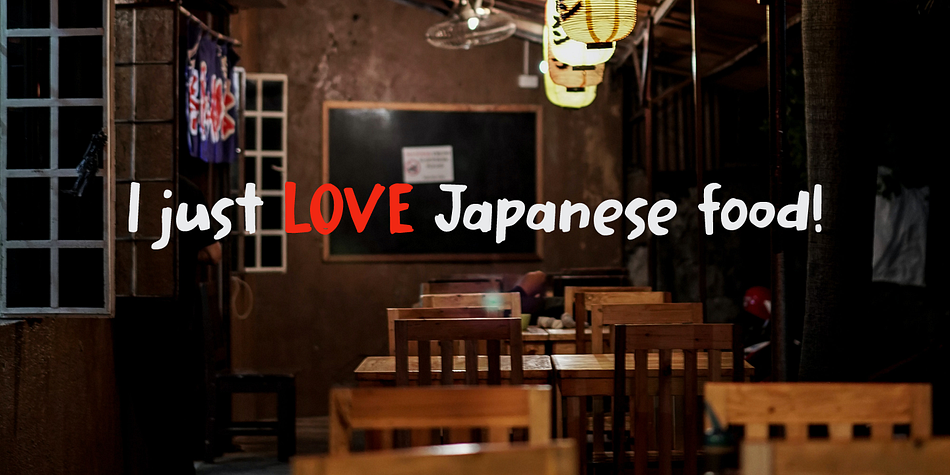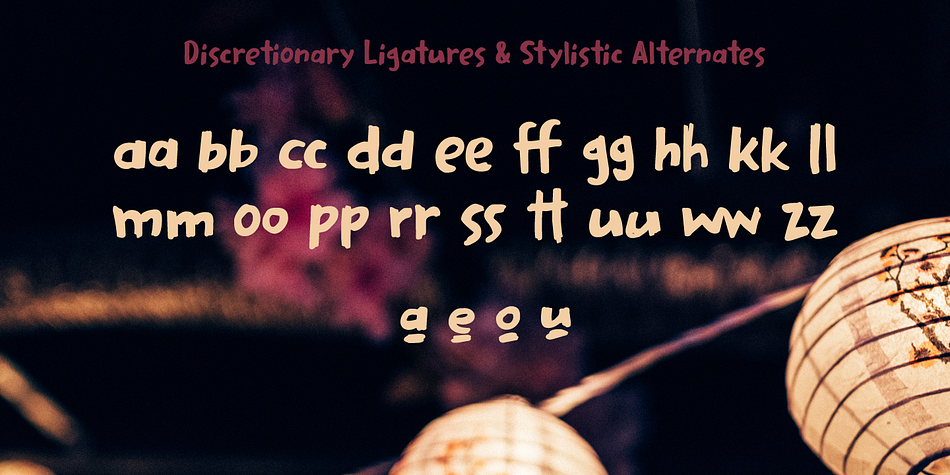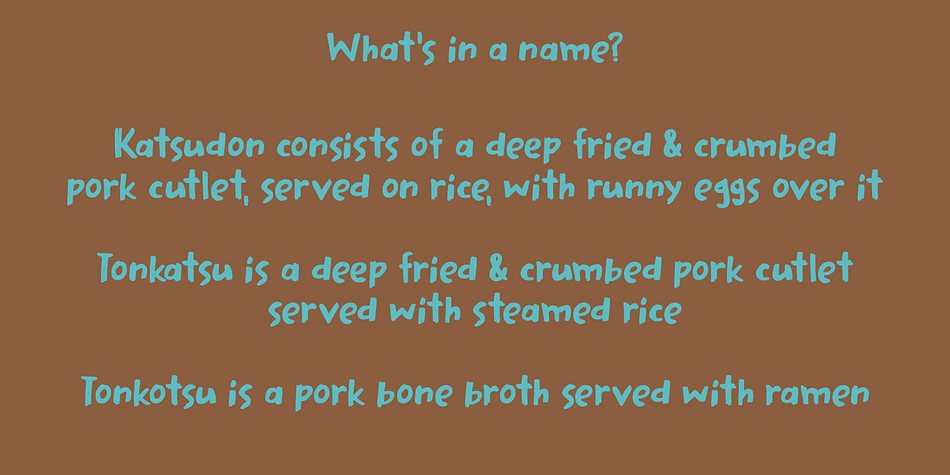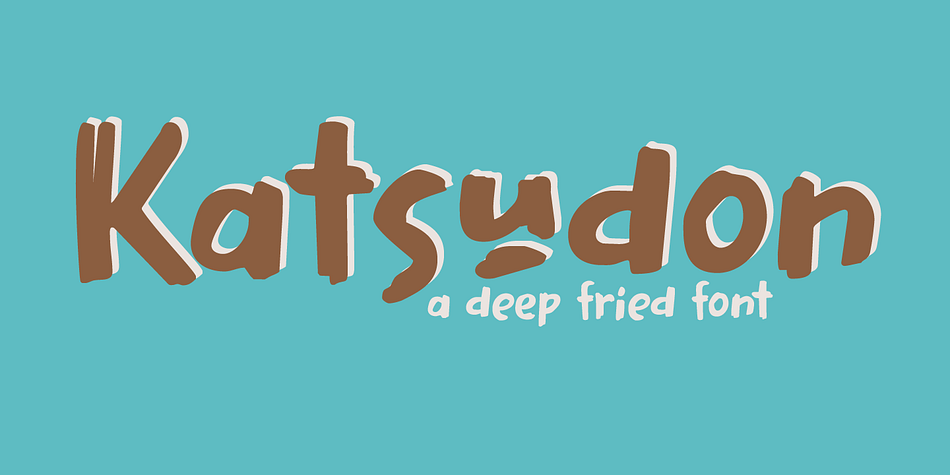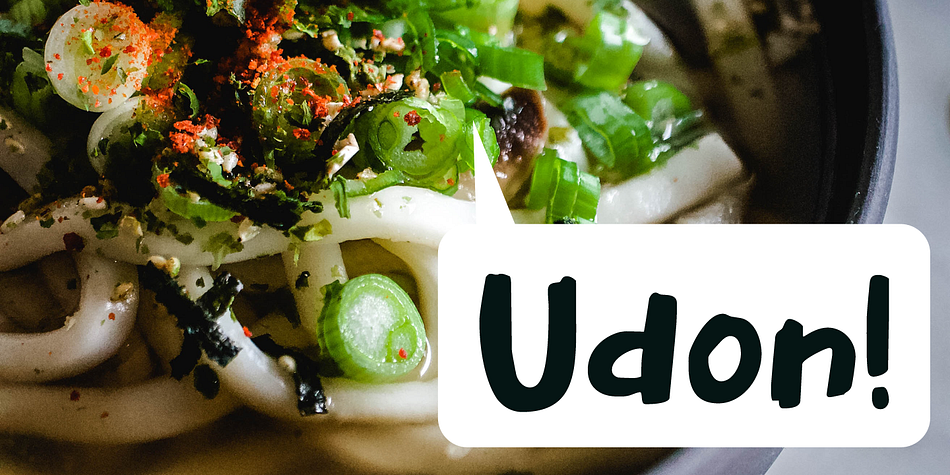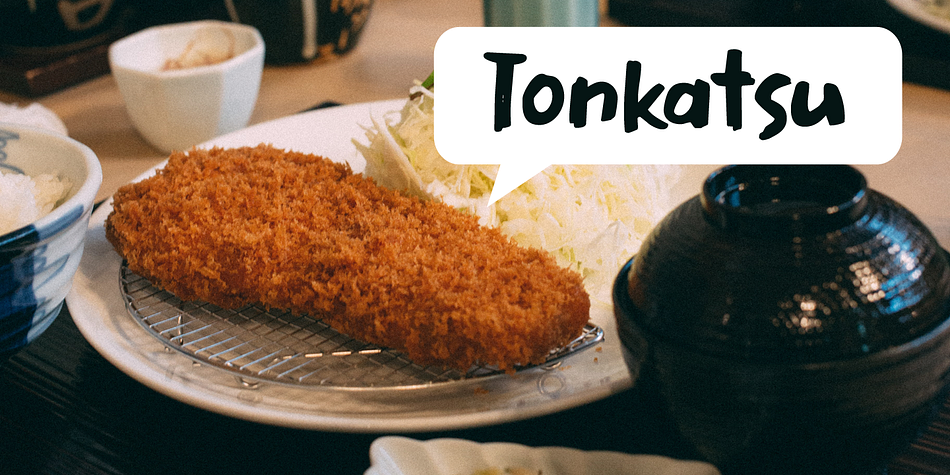
Designed by David Kerkhoff, Katsudon is a hand display and hand drawn font family. This typeface has two styles and was published by Hanoded.
Katsudon is a Japanese crumbed and deep fried pork cutlet, typically served on rice with egg drizzled over it. There is also a chicken variety.
Katsudon is a crumbed and deep fried font. It comes with a splash of authenticity, a sprinkling of cheekiness and a generous dose of oomph. Oh, yeah, and double letter ligatures, plus a few alternates as well.